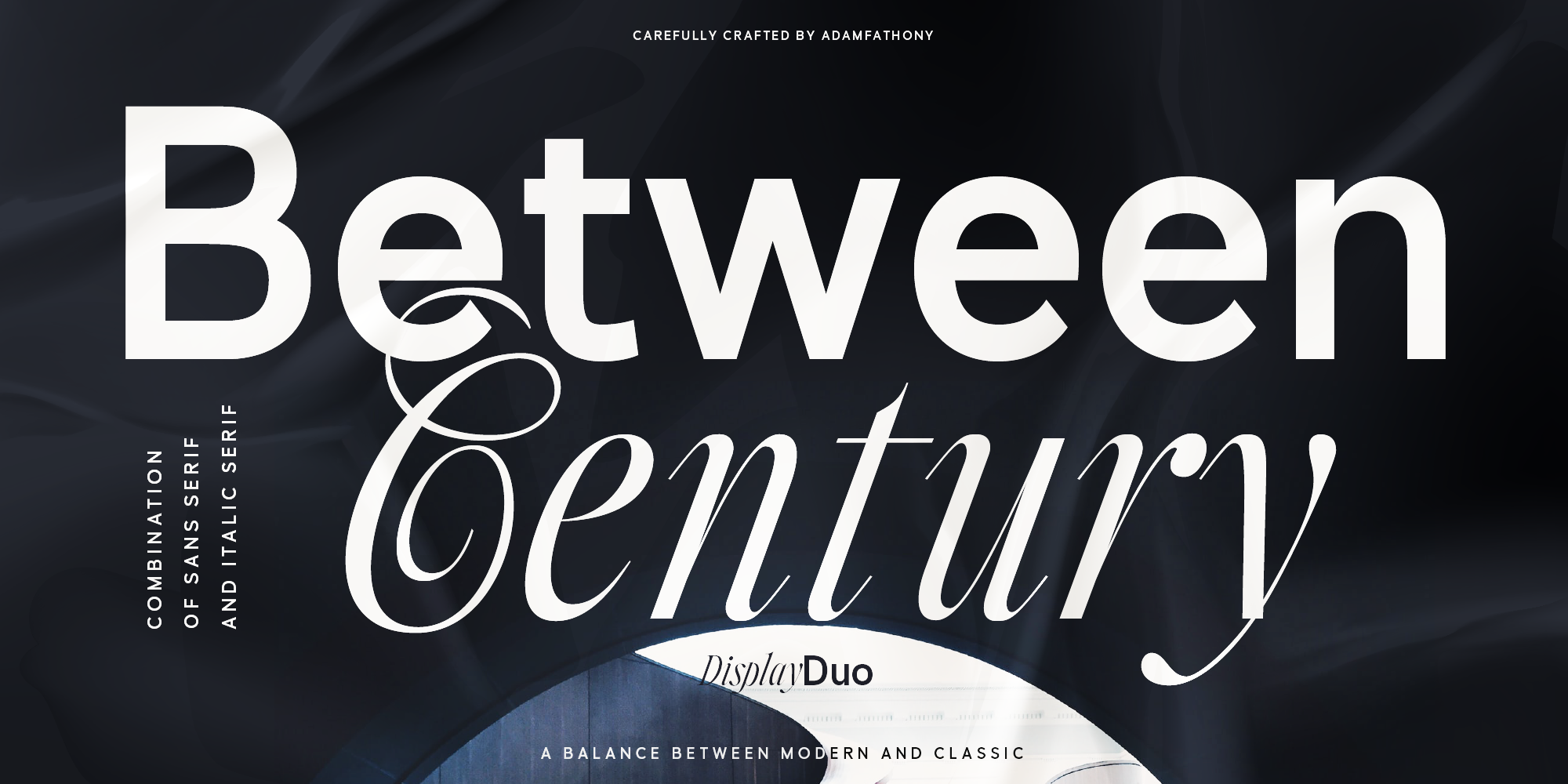
Between Century
Between Century is a sans serif and serif font family. This typeface has two styles and was published by AF Studio.
Between Century, A Display Font Duo.
Between Century is a combinations between modern and classic look. Basically this is a Modern Sans with slightly geometric, combined with italic serif that can match perfectly to any design project. You can explore how to mix and match between letters, words or in the headers. Just Combine it and create your design more outstanding. Between Century is great for Poster, Headlines, Logotype, Branding, Social Media Post, Website and etc.
Between Century Italic Serif
Between Century Sans